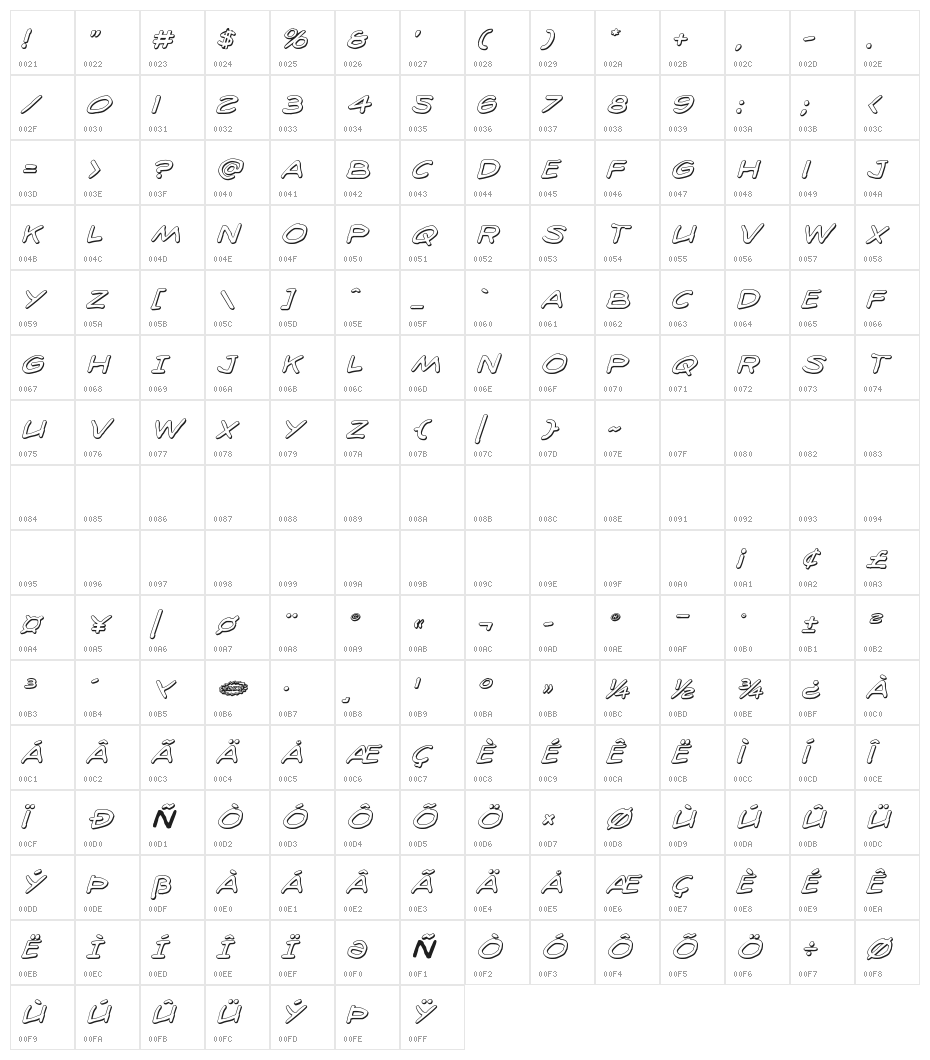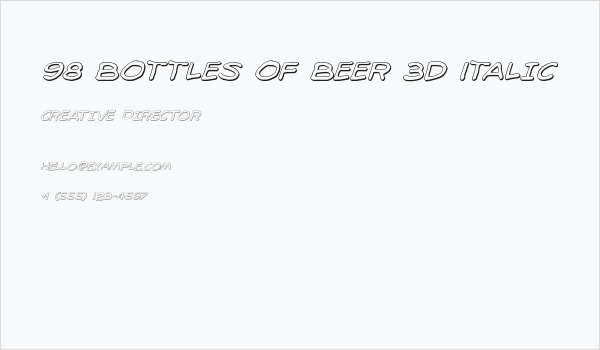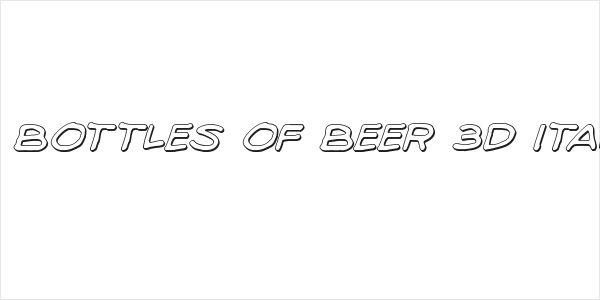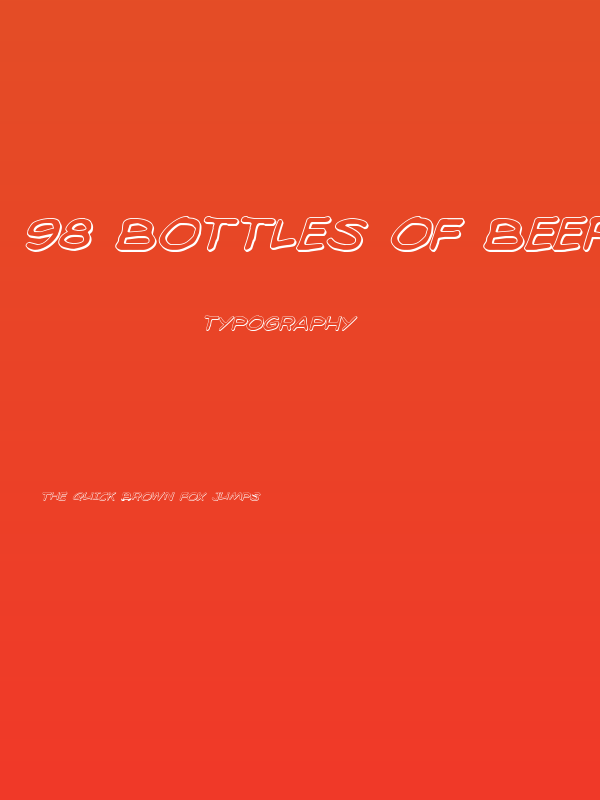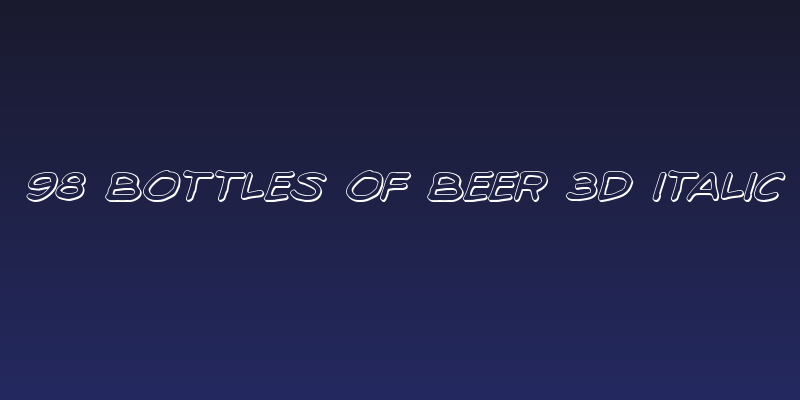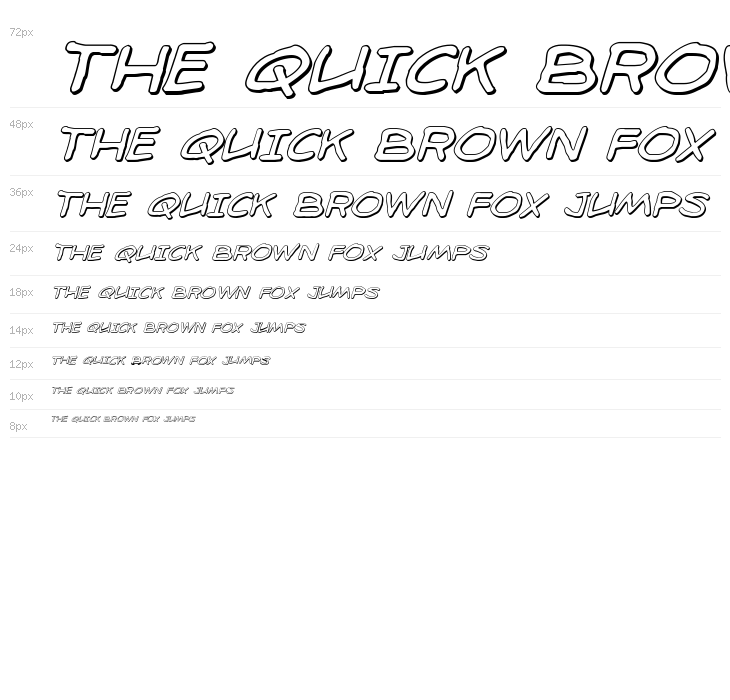
98 Bottles of Beer 3D Italic Font
98 Bottles of Beer 3D Italic Description
This font features a bold, three-dimensional appearance with an italic slant, giving it a dynamic and playful look. The characters are outlined, creating a hollow effect that adds depth and visual interest. The uppercase and lowercase letters maintain a consistent style, with rounded edges and smooth curves that enhance readability. The numerals and special characters are designed to match the overall aesthetic, making them suitable for a variety of creative applications. The font's unique style is both modern and eye-catching, making it ideal for projects that require a bold statement.